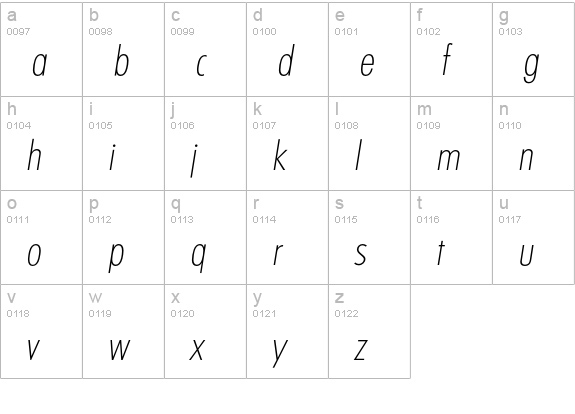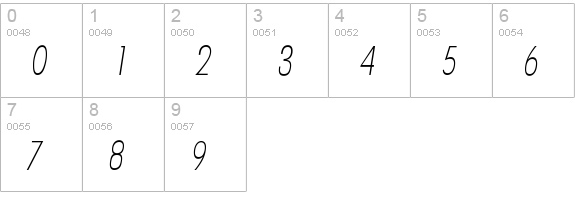
Limerick-XlightCondIta Font Details
Limerick-XlightCondIta is a modern and elegant font that exudes sophistication and style. Its sleek and slim design makes it perfect for projects that require a touch of finesse and professionalism. With its delicate curves and refined letterforms, Limerick-XlightCondIta adds a touch of class to any design. This beautiful font is not only visually appealing but also highly versatile, making it suitable for a wide range of design projects, from branding to editorial design. Whether you're creating a logo, a poster, a website, or any other design project, Limerick-XlightCondIta is sure to make an impact. The best part? Limerick-XlightCondIta is completely free to download at FontsMarket.com. So go ahead and elevate your designs with this stunning font without breaking the bank. Download Limerick-XlightCondIta today and take your designs to the next level!